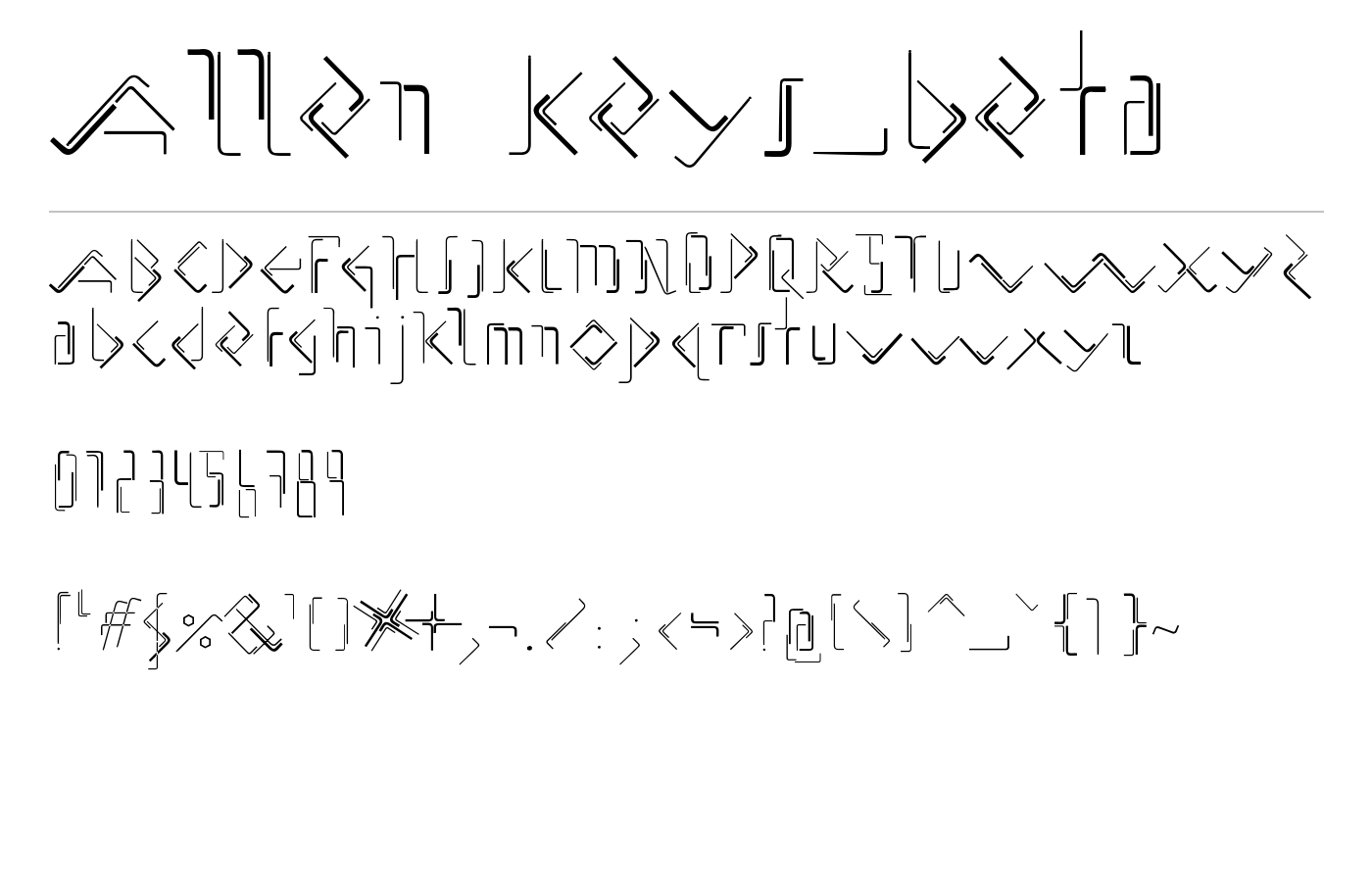
Allen Keys_beta is an ultra-light, geometric sans serif font characterized by its delicate, angular letterforms that create a futuristic and technical feel. Its narrow width, sharp lines, and unique stylized shapes give it a distinct, modern appearance ideal for tech branding, innovative logos, and avant-garde graphic projects where a minimalist yet intricate look is desired. The font’s intricate design works best in large sizes for headlines or display use, adding a sophisticated, tech-savvy vibe to contemporary creative work.
Allen Keys_beta Font
About Allen Keys_beta Font